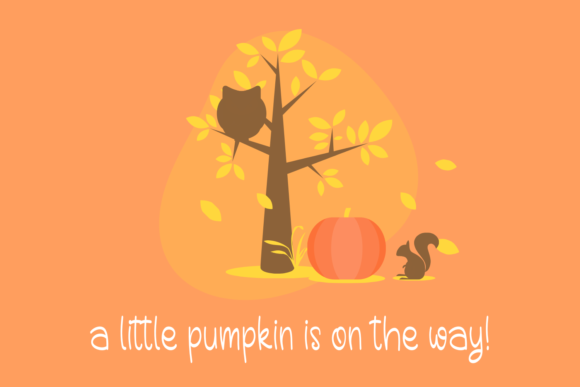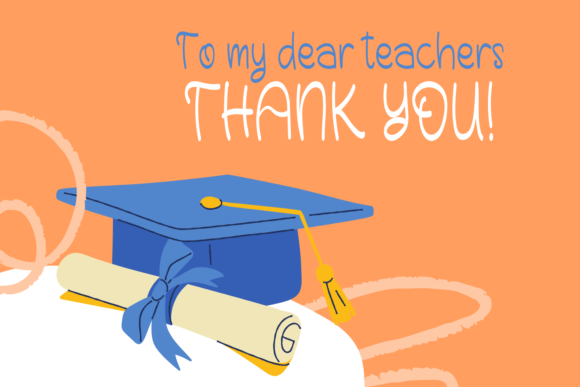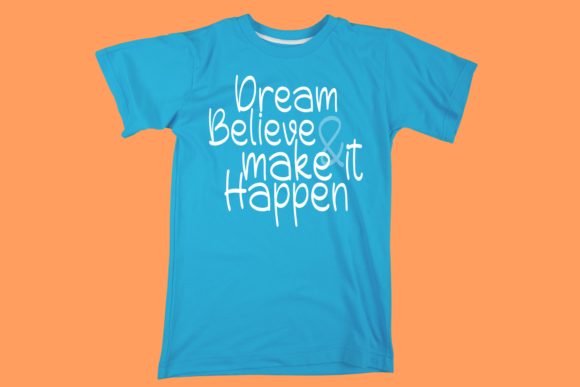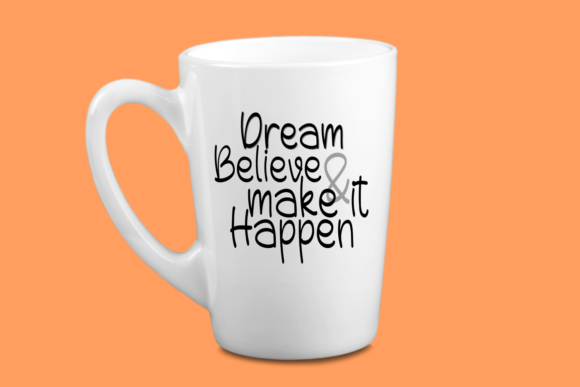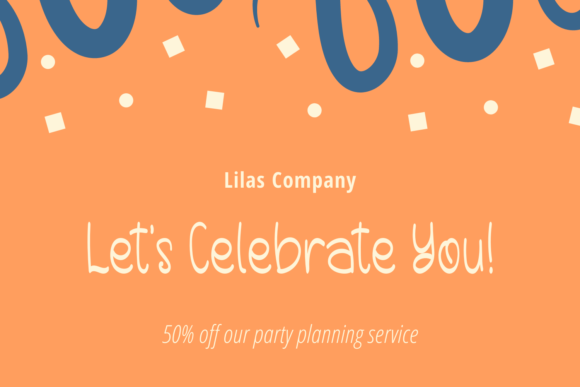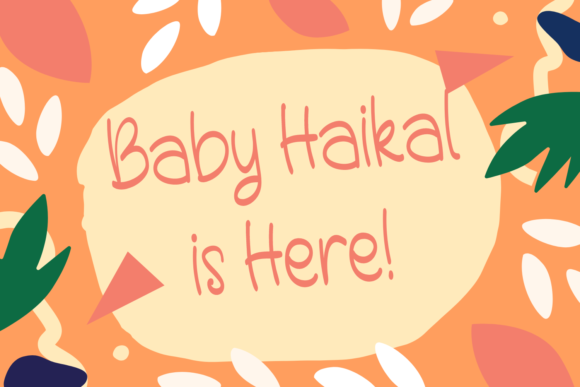
Introduction to Farmhouse Winter Font
Farmhouse Winter is a sweet and friendly handwritten font.
Its natural and unique style makes it incredibly fitting to a large pool of designs .